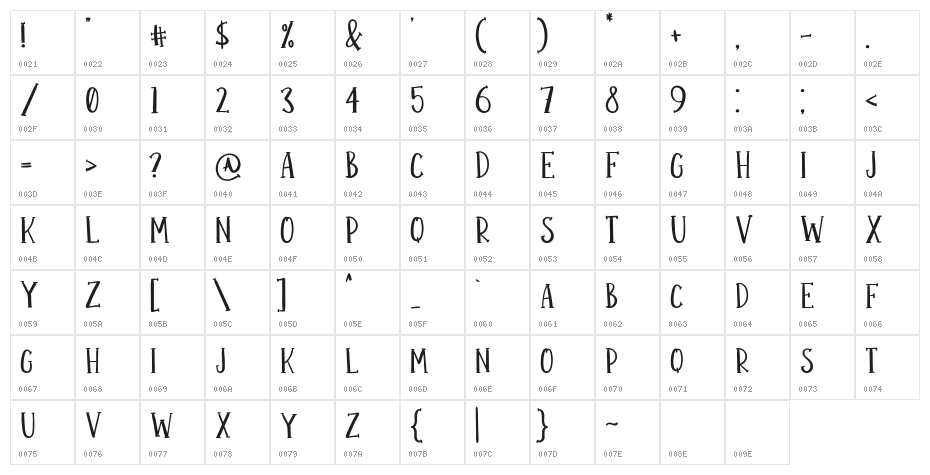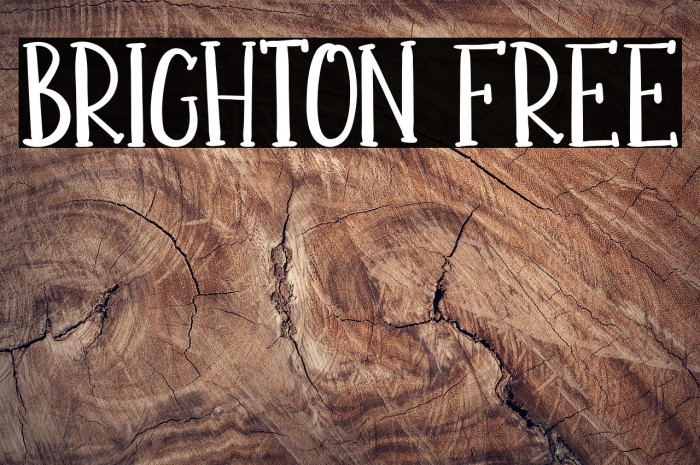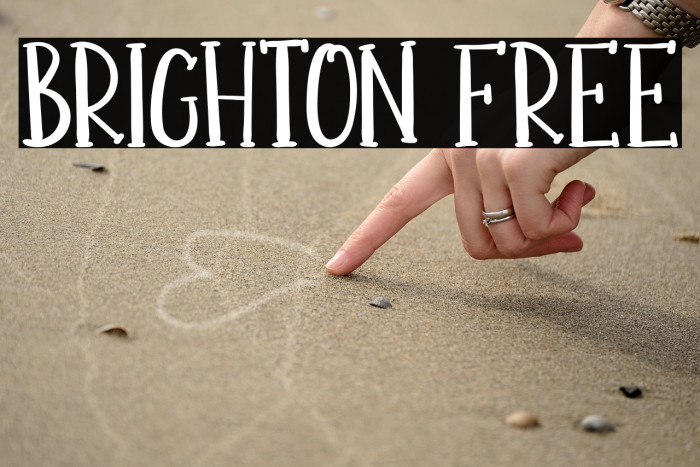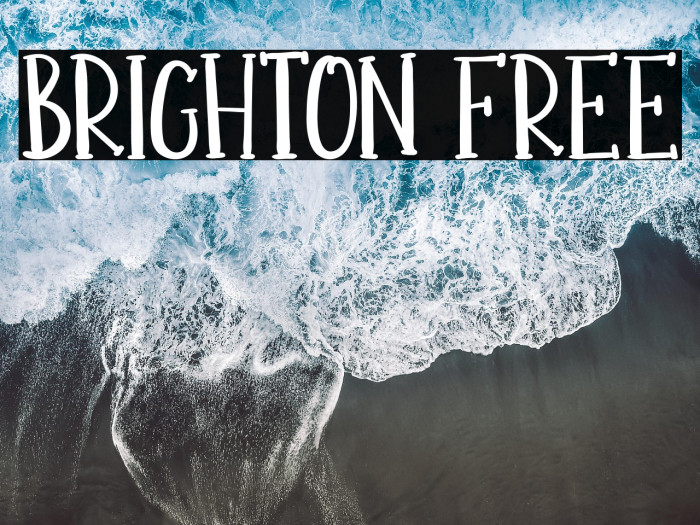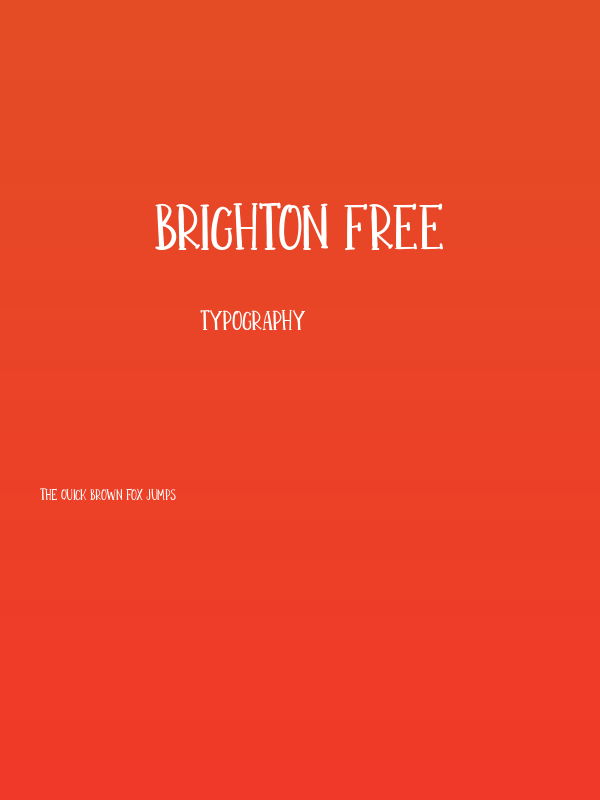
BRIGHTON FREE Font
BRIGHTON FREE Description
This font features a playful and whimsical style with a hand-drawn appearance. The letters are tall and slightly irregular, giving a casual and friendly vibe. The strokes are consistent in width, providing a uniform look across all characters. The uppercase and lowercase letters maintain a cohesive design, with rounded edges and a slight tilt that adds to the informal aesthetic. Numbers and special characters are crafted with the same playful touch, ensuring a harmonious overall appearance. This font is ideal for projects that require a fun and approachable feel.
Overall StyleCasual
Use CaseHeadlines, Logos, Invitations
Proposed ProjectsIdeal for children's books, greeting cards, playful branding, and casual invitations.